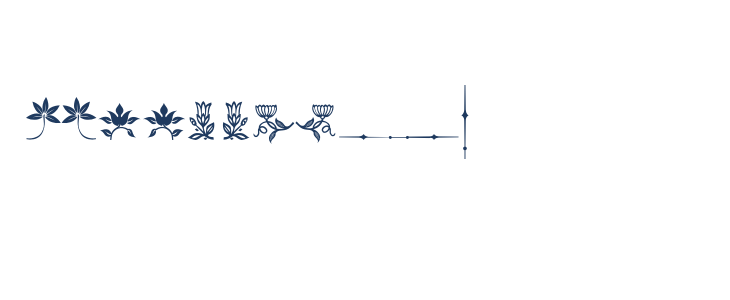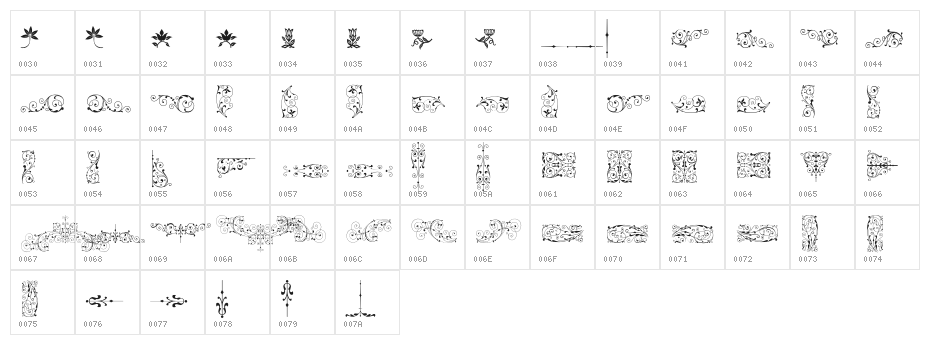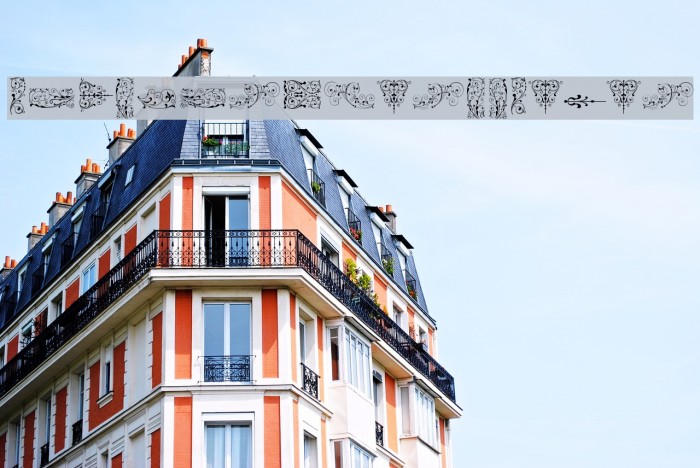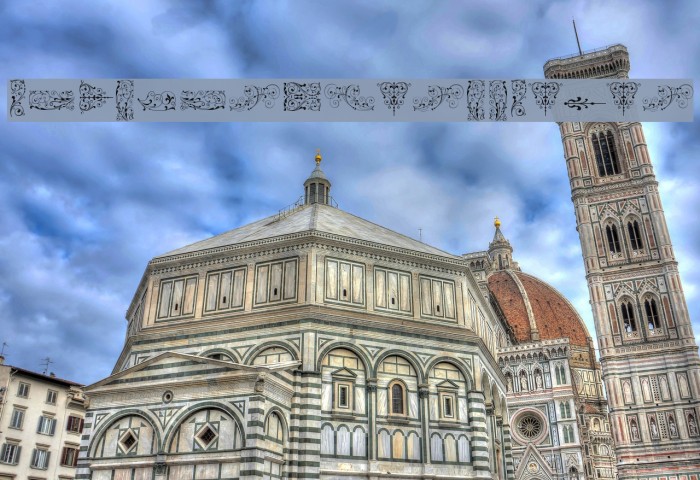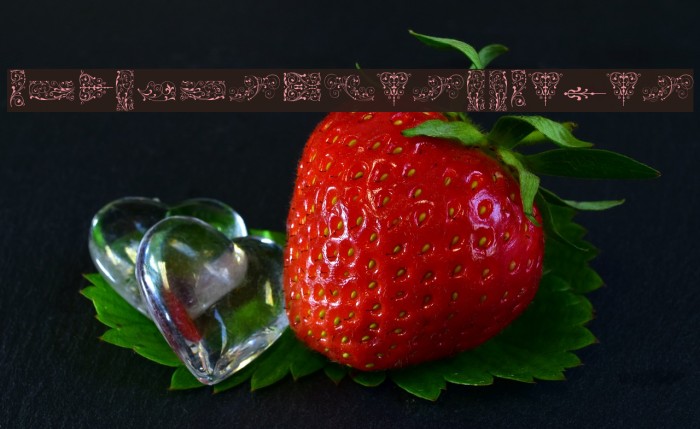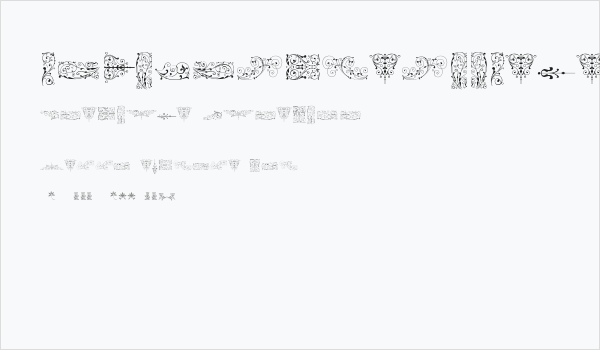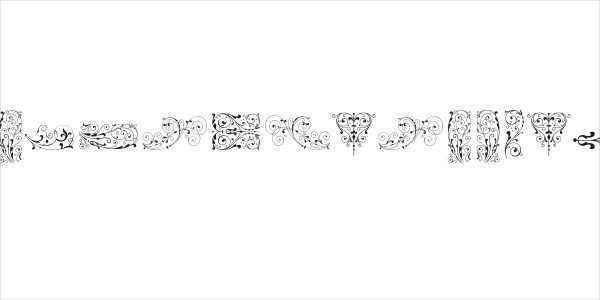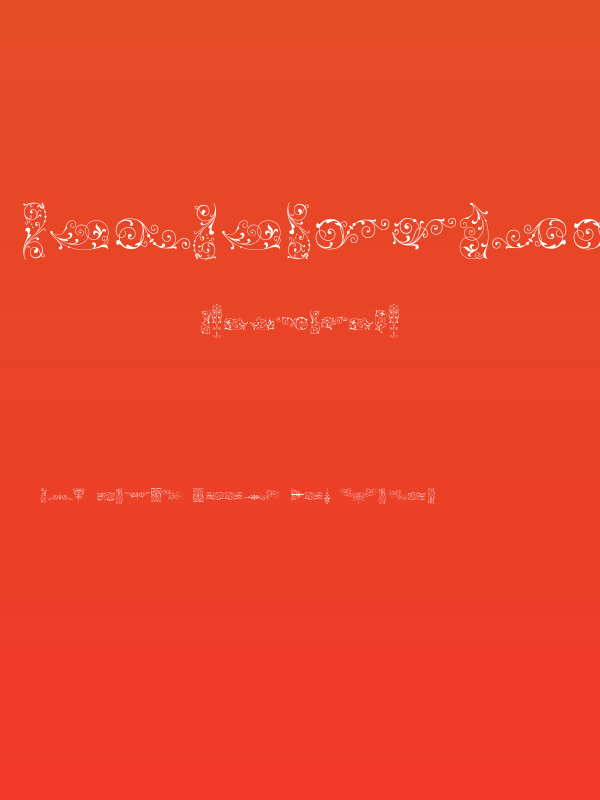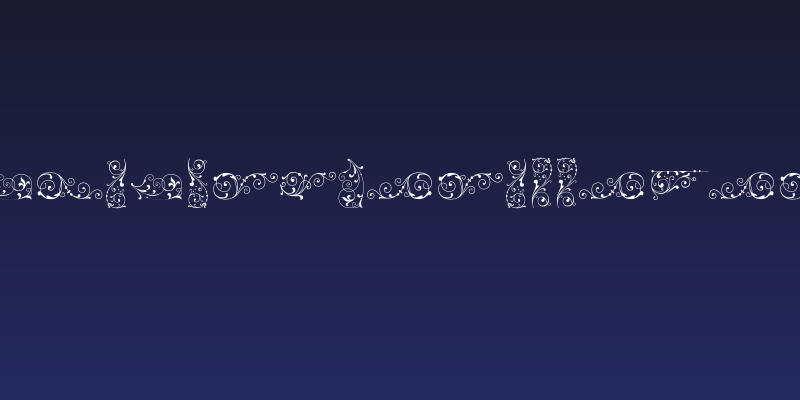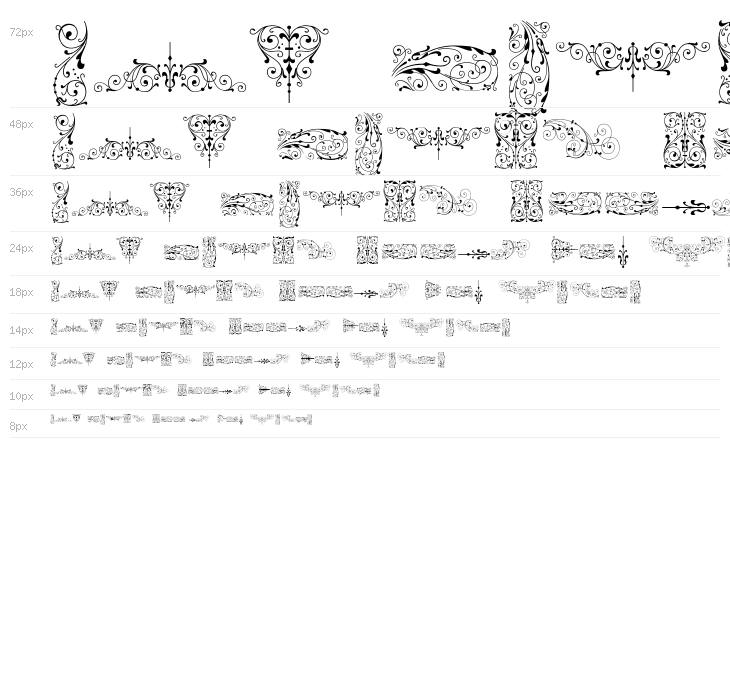
SoftOrnamentsSeven Font
SoftOrnamentsSeven Description
This collection features an array of intricate ornamental designs, showcasing a blend of floral and abstract motifs. Each element is crafted with elaborate swirls and curves, embodying a sense of elegance and sophistication. The designs are highly detailed, with a focus on symmetry and balance, making them ideal for decorative purposes. These ornaments can be used to embellish various projects, adding a touch of classic beauty and refinement. The style is reminiscent of vintage art, with a modern twist that makes it versatile for contemporary applications.
| Use Case | Decorative elements, Borders, Invitations |
| Proposed Projects | Ideal for wedding invitations, decorative borders, book covers, and vintage-themed designs. |